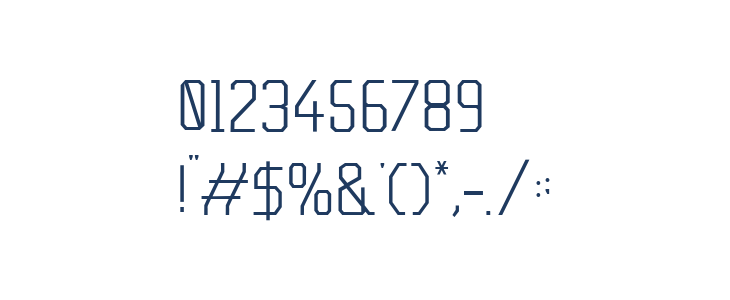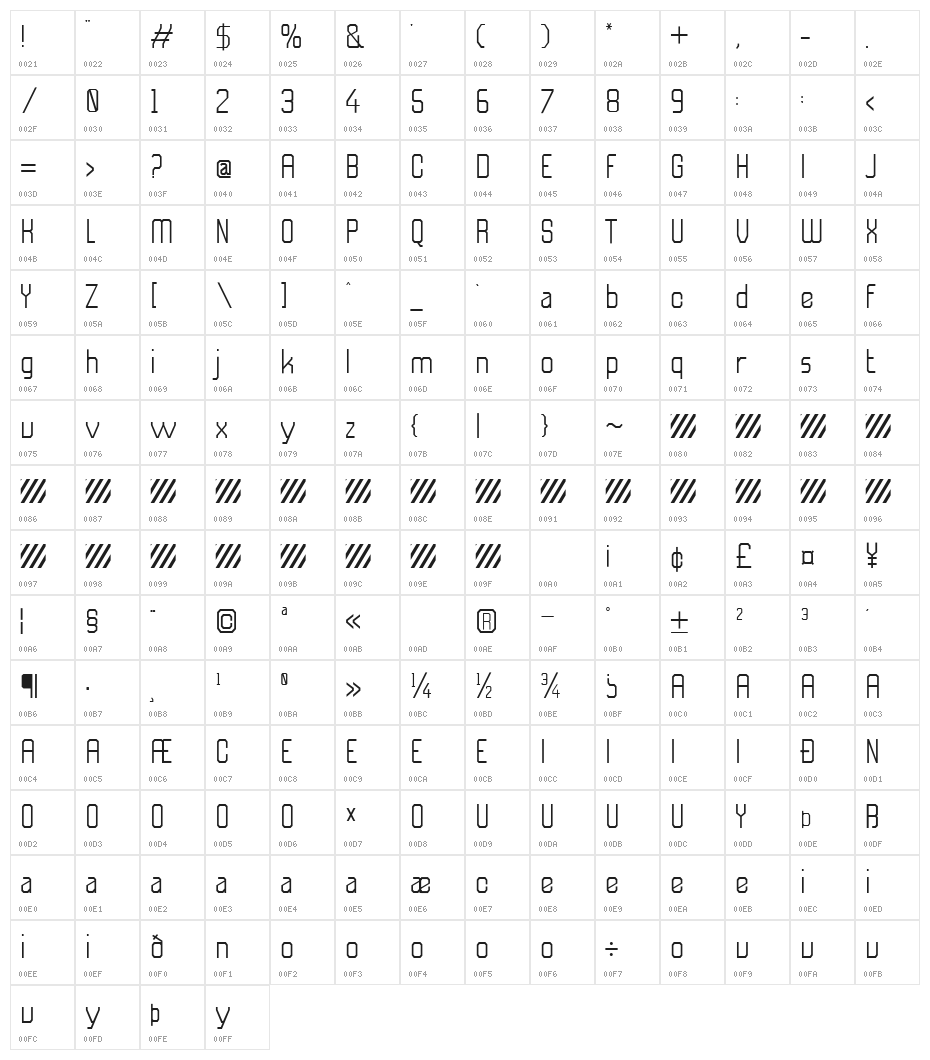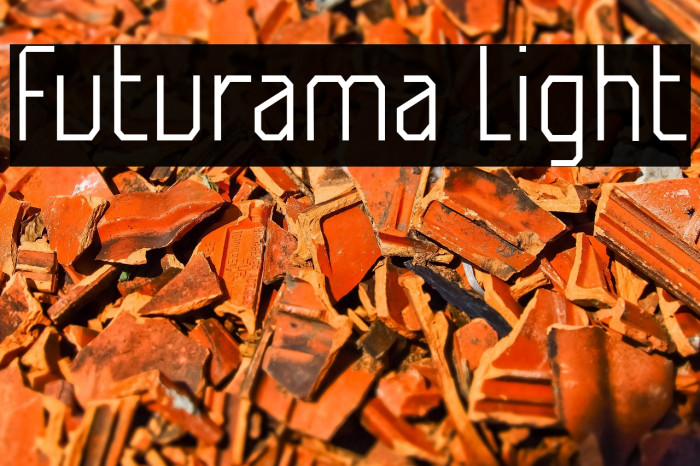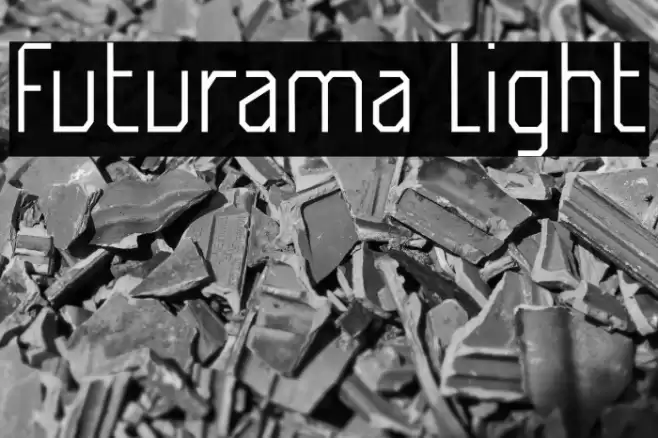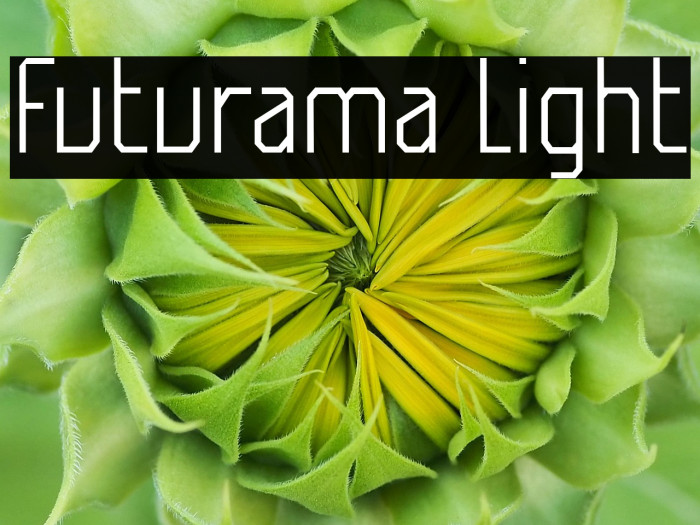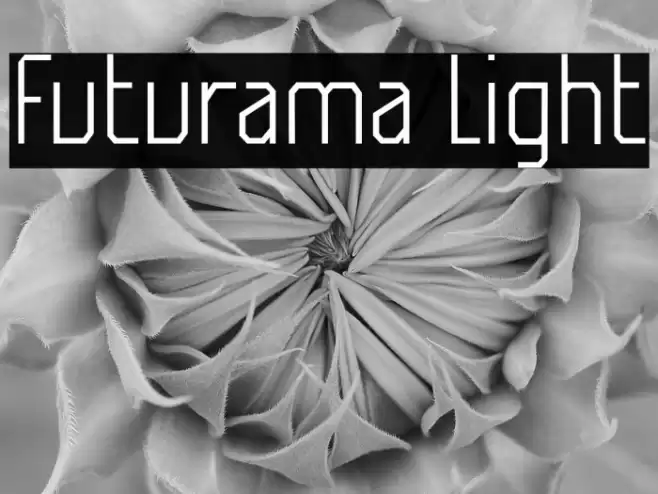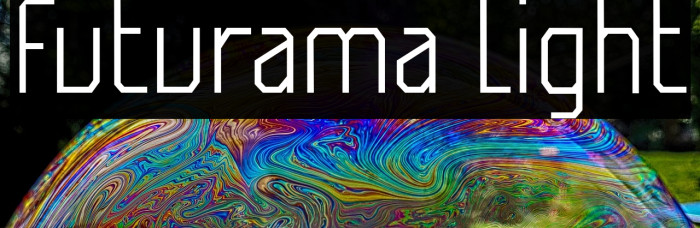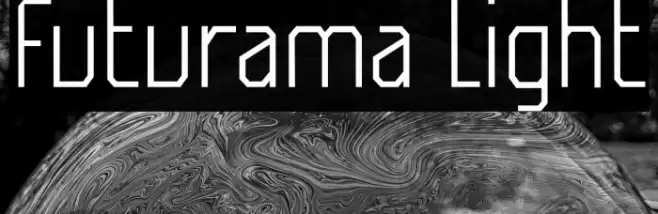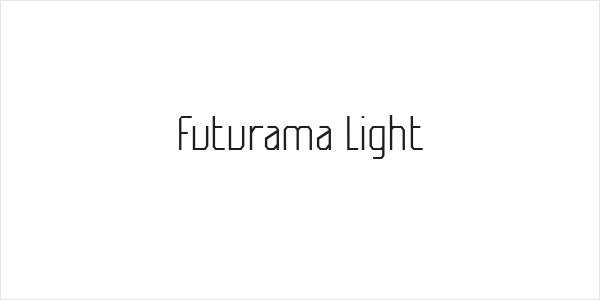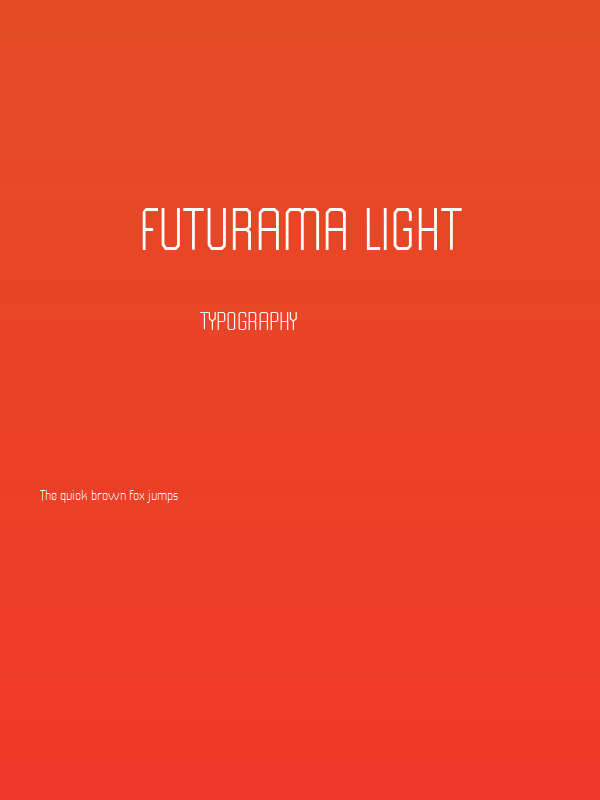
Futurama Light Font
Futurama Light Description
This font features a geometric and futuristic design with clean, straight lines and angular corners. The characters are constructed with a consistent stroke width, giving it a uniform appearance. The uppercase letters are tall and narrow, while the lowercase letters maintain a similar structure, creating a cohesive look. The numerals and special characters follow the same design principles, ensuring a seamless integration across all text elements. The overall style is modern and minimalistic, making it suitable for contemporary design projects.
| Proposed Projects | Ideal for sci-fi themed projects, tech branding, modern posters, and digital interfaces. |